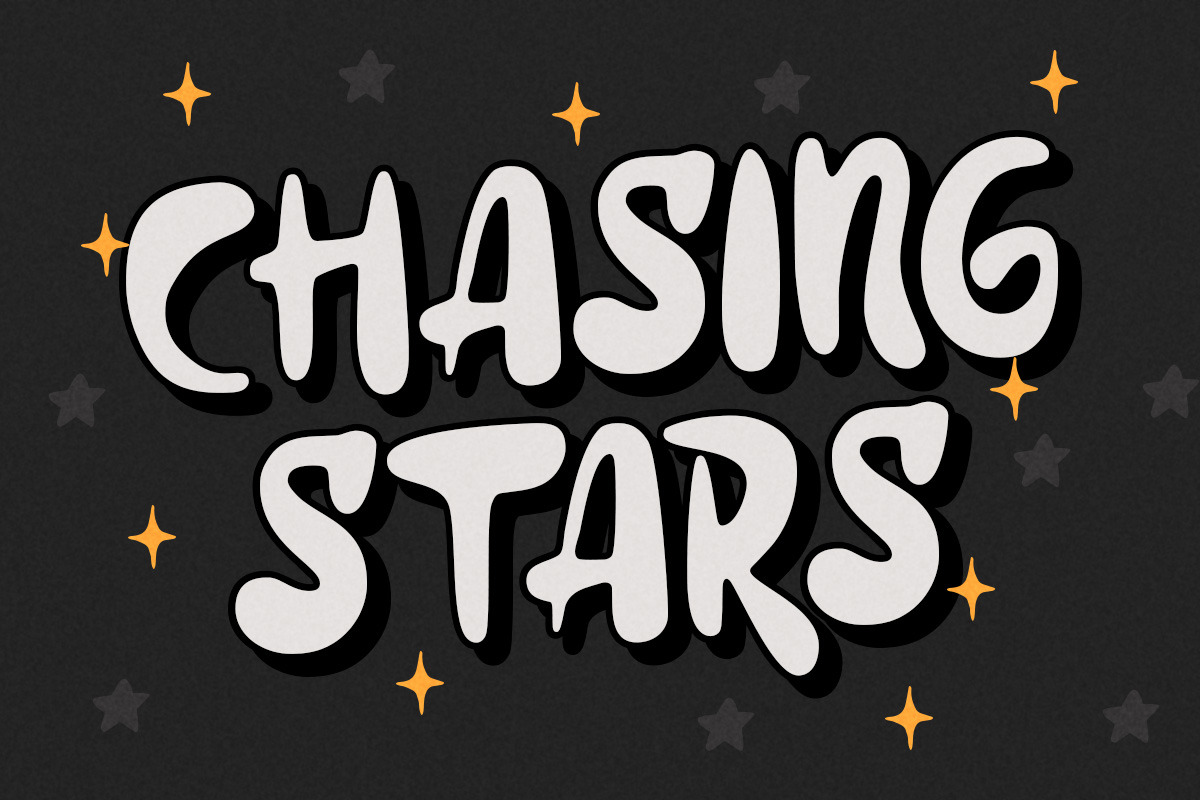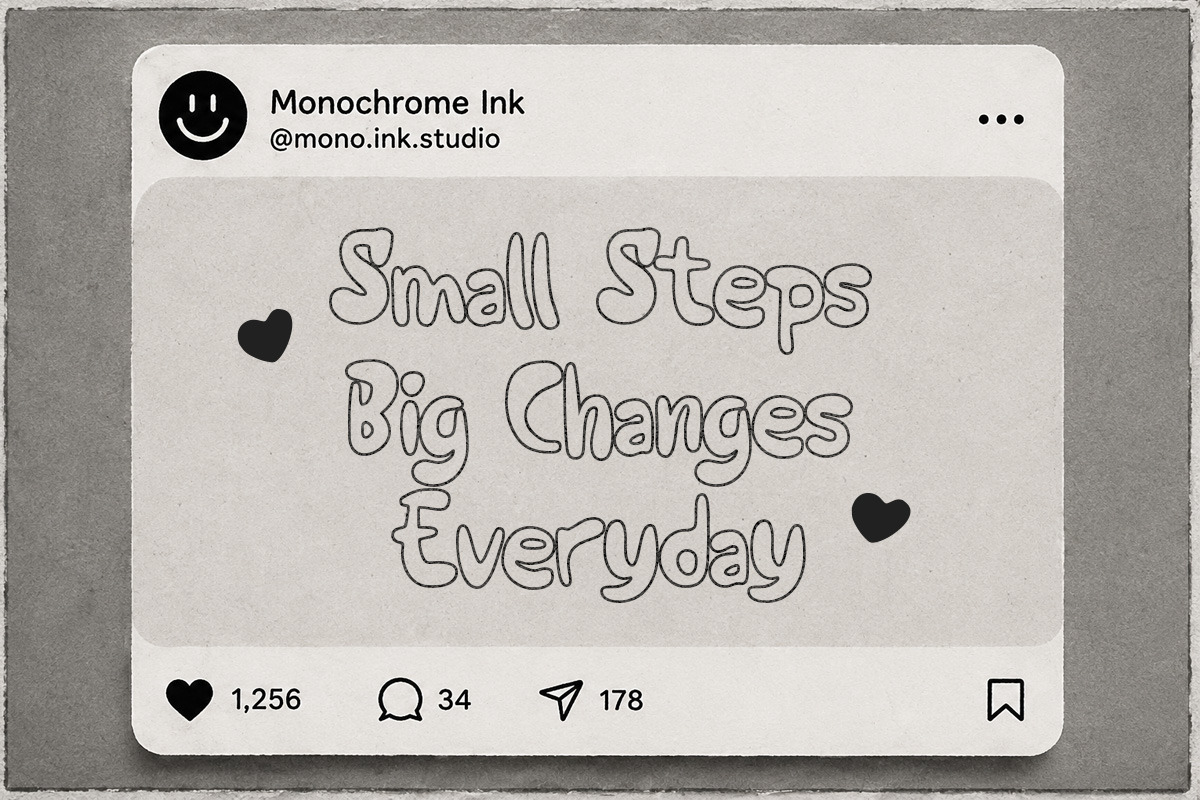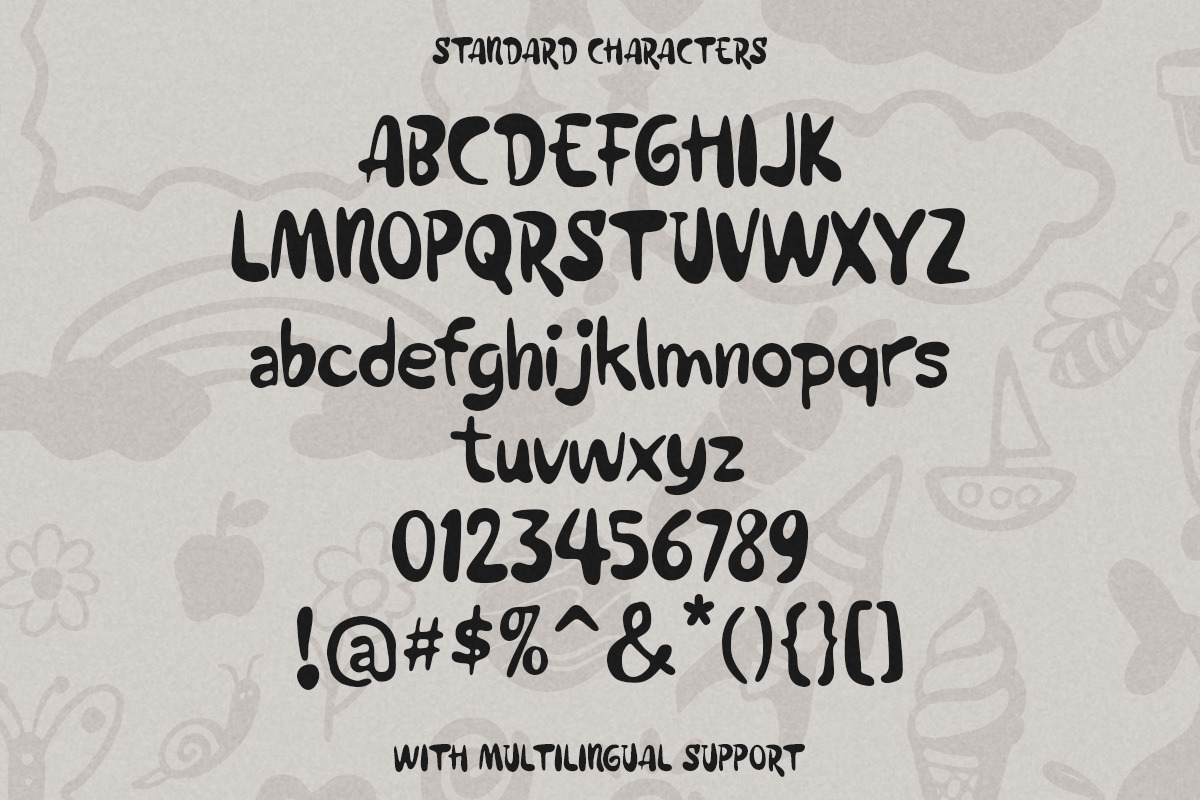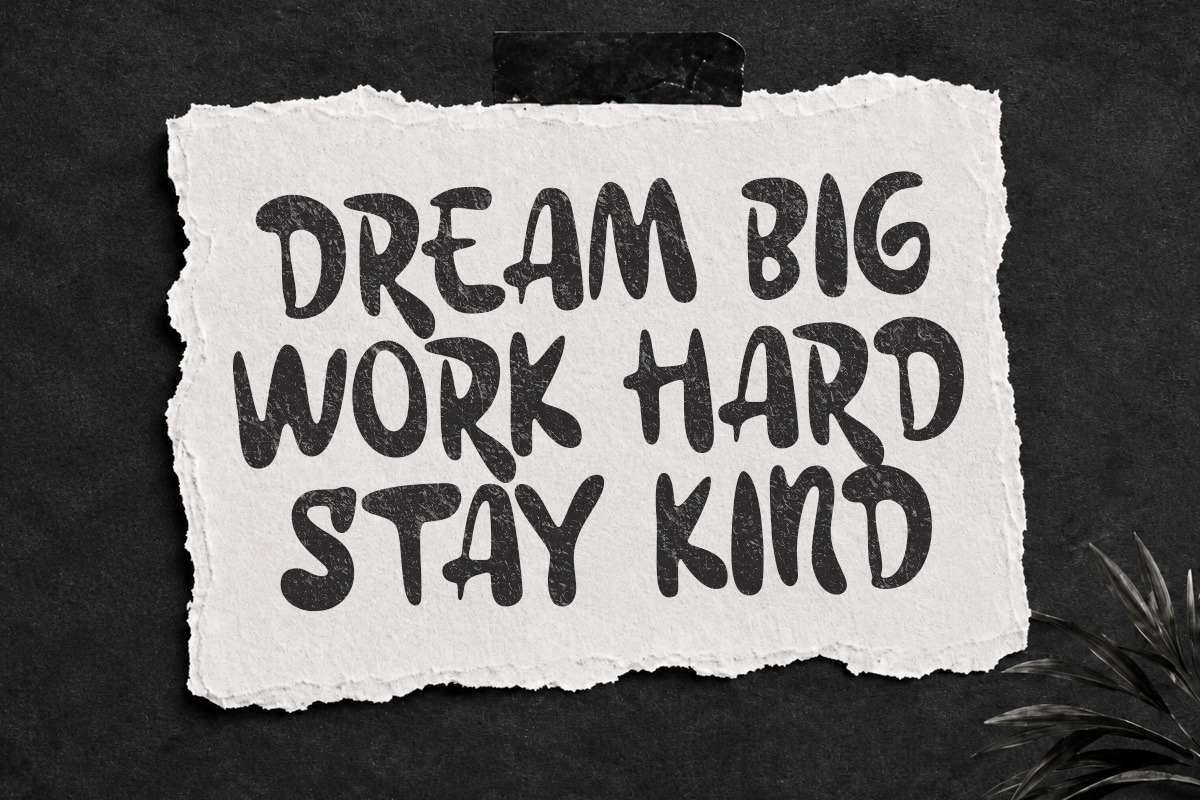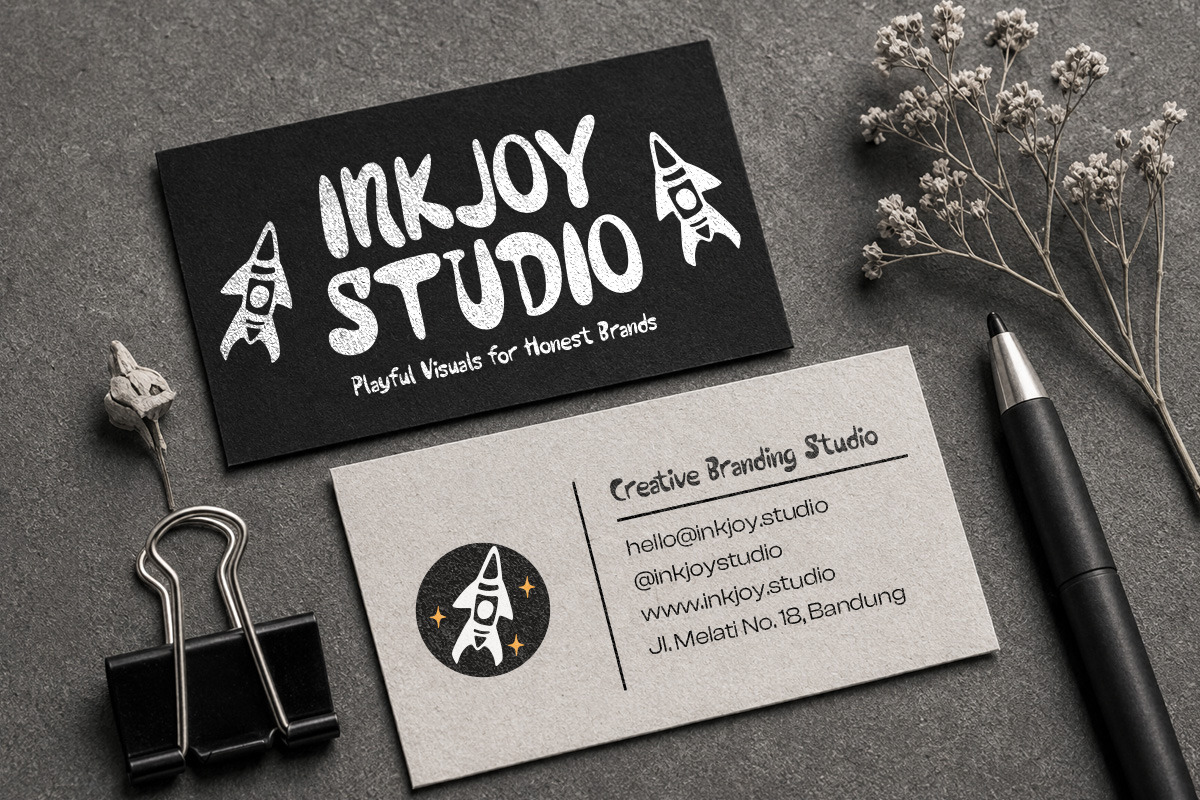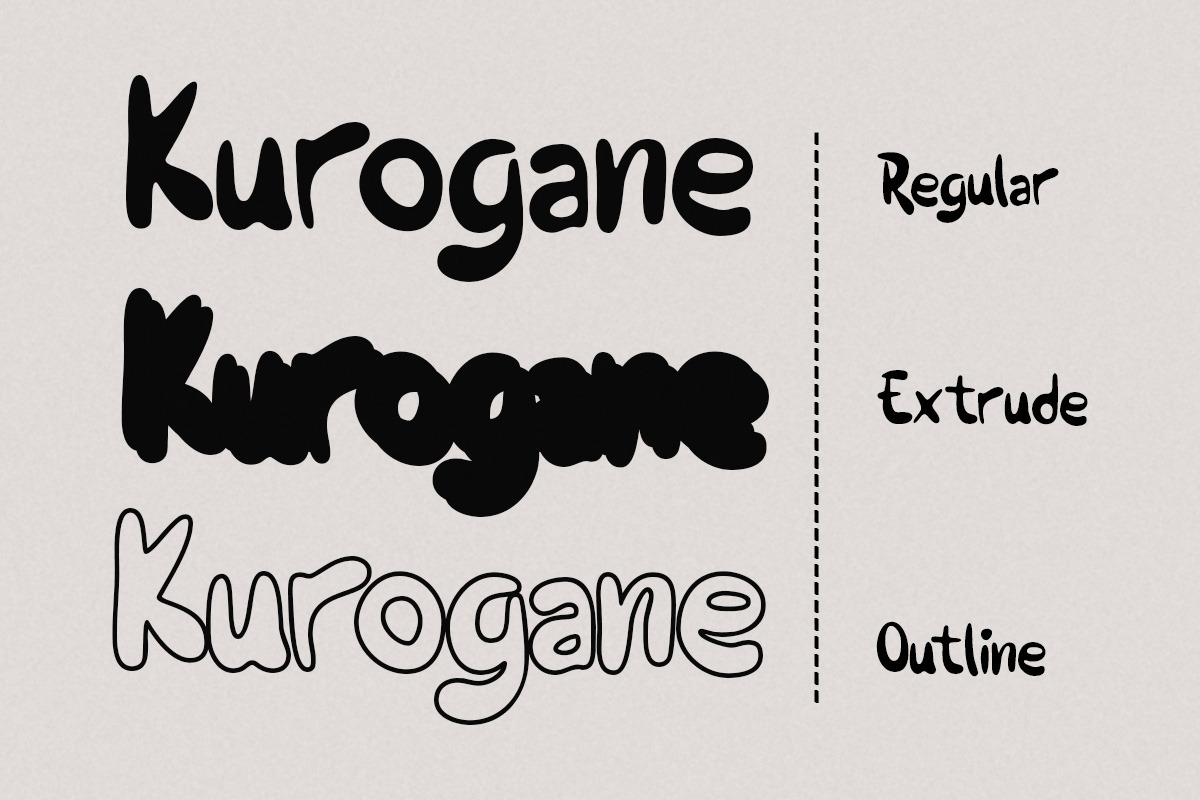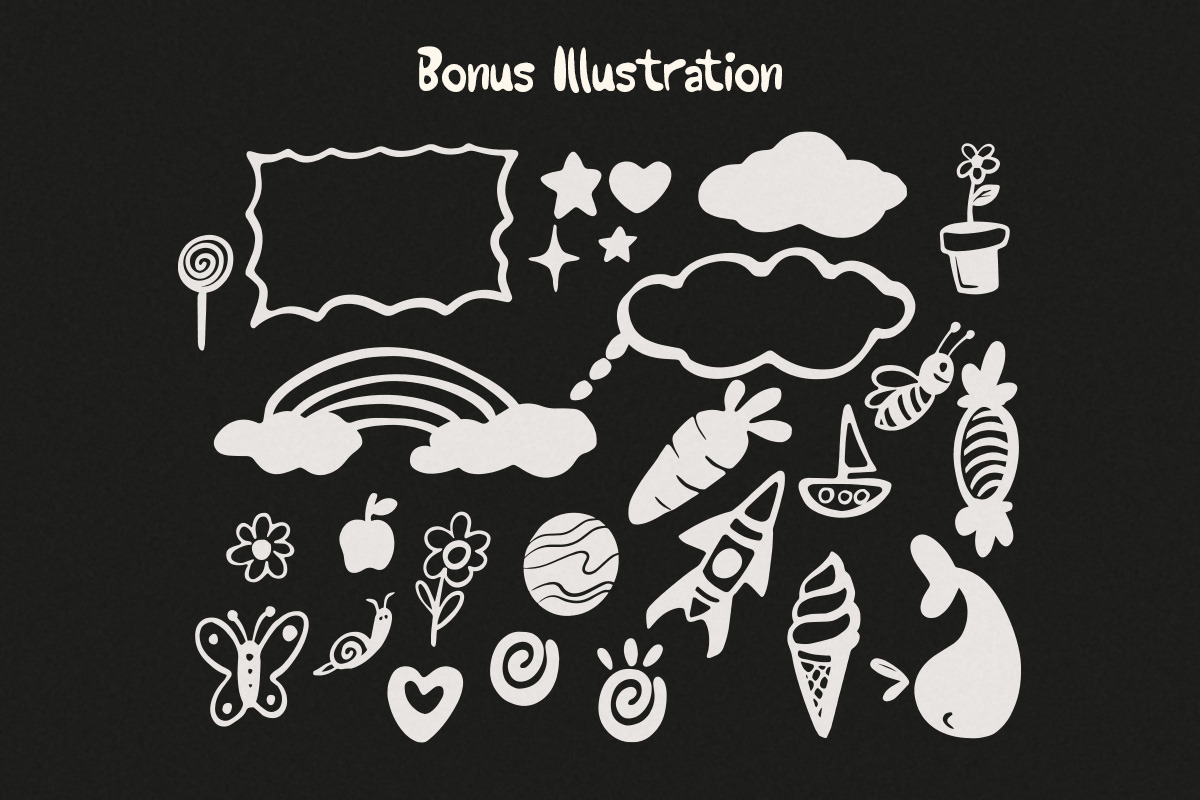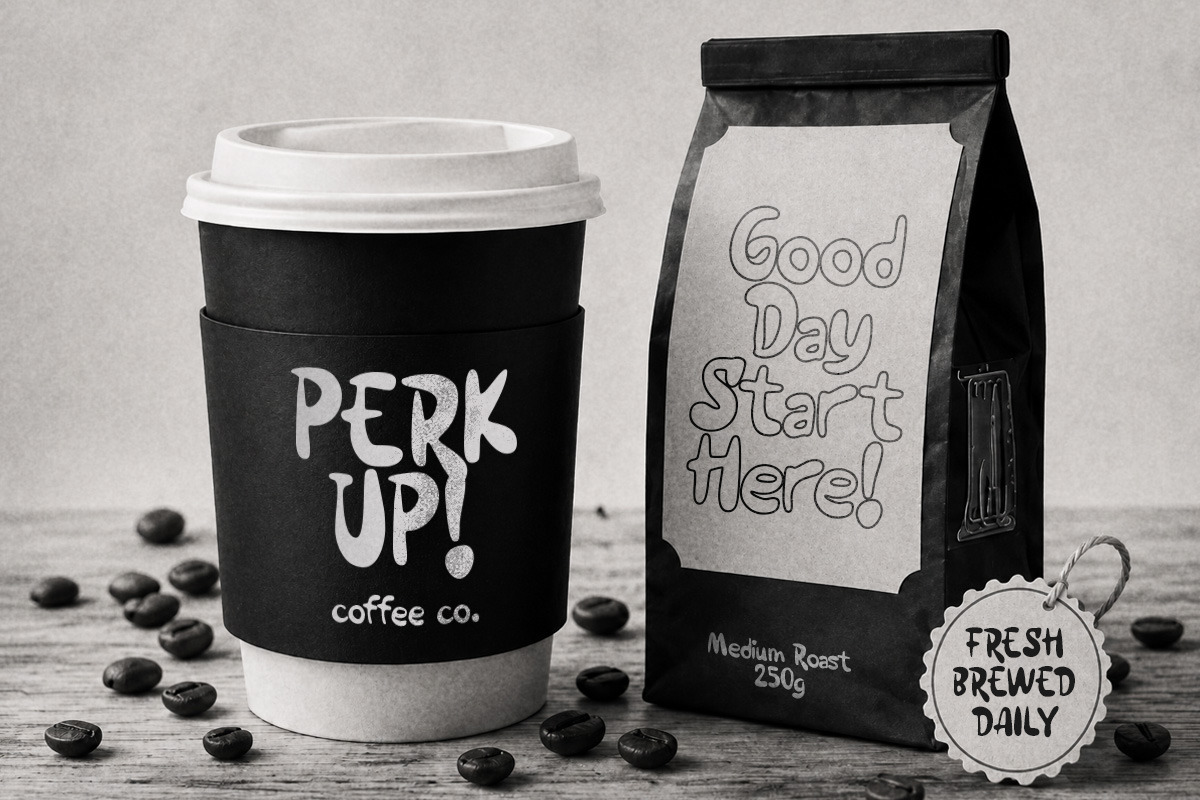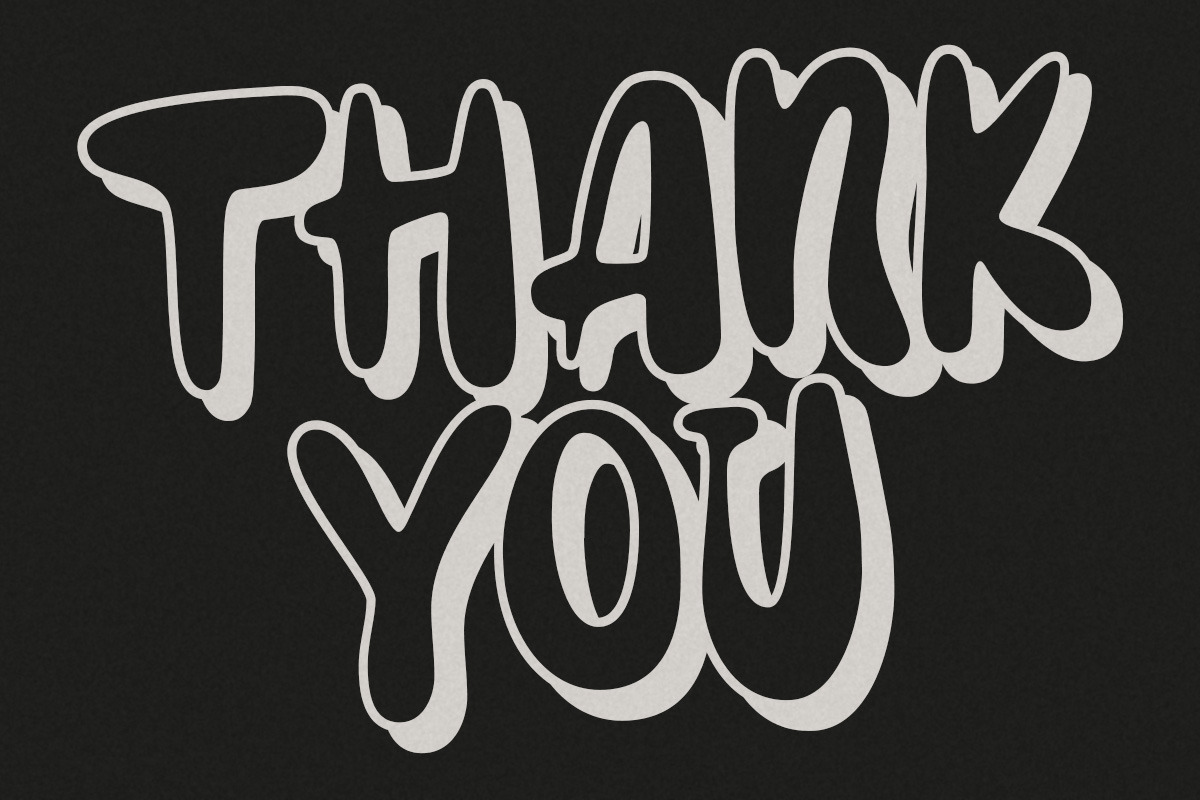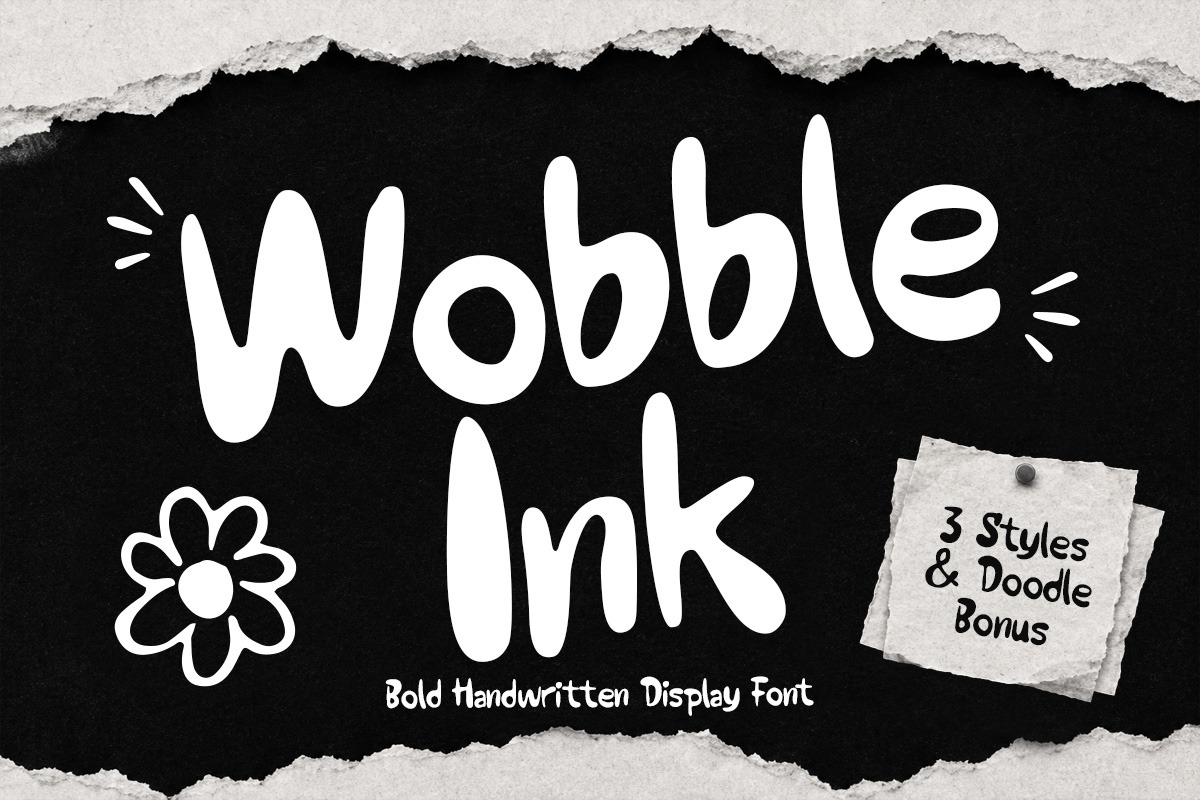
Wooble Ink Bold Handwritten Font
Wooble Ink is all about big smiles, messy doodles, and carefree creativity. With its chunky handwritten shapes and bouncy playful rhythm, this font feels friendly, and full of personality, it comes with multiple styles and doodle extras, making it perfect for kids projects, classroom materials, packaging, stickers, social media, and creative designs that want to feel cheerful, approachable, and full of happy energy.
Uppercase & lowercase
Numbers and punctuation
Alternates & Ligatures